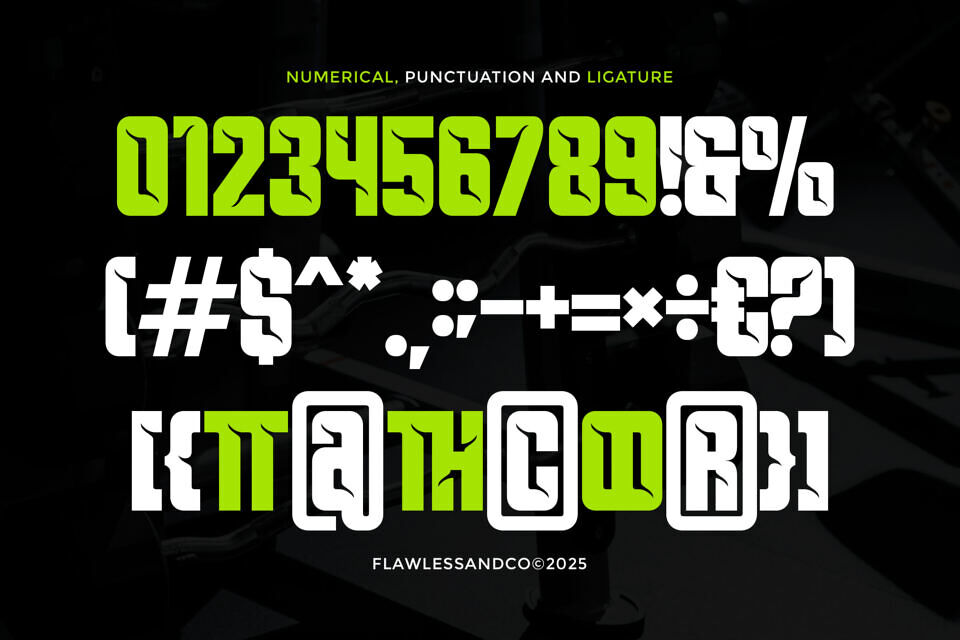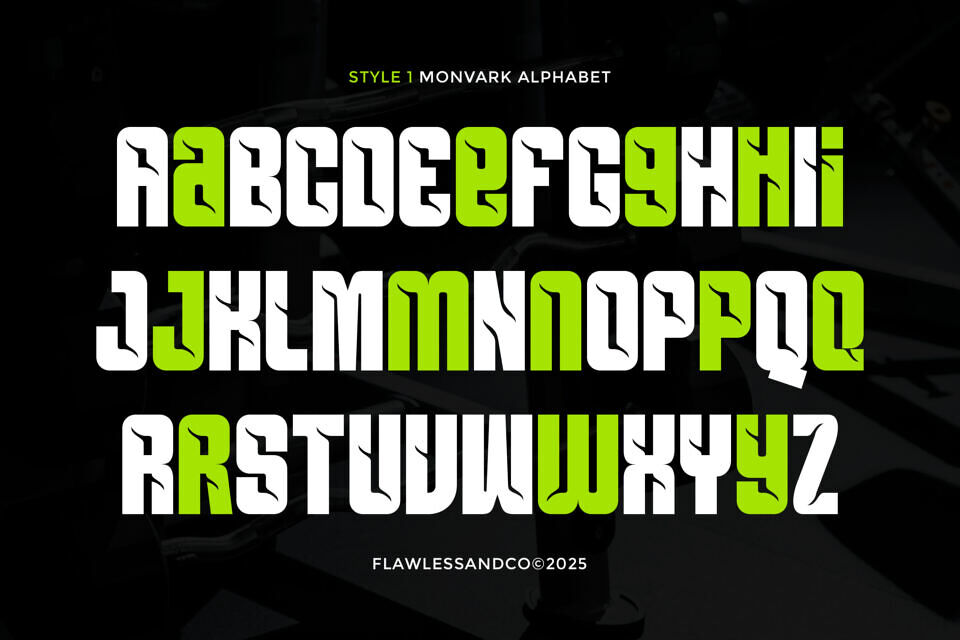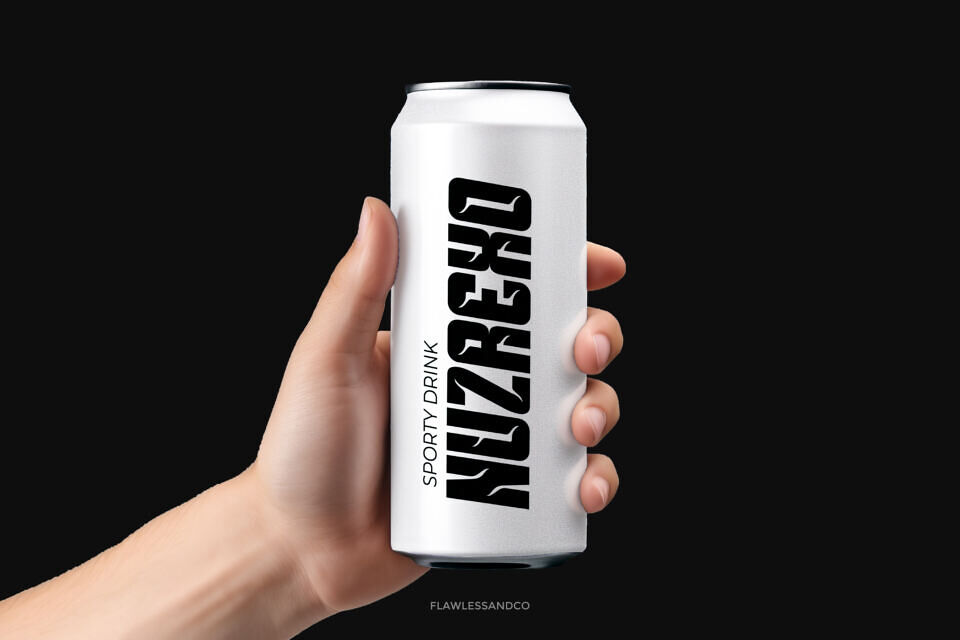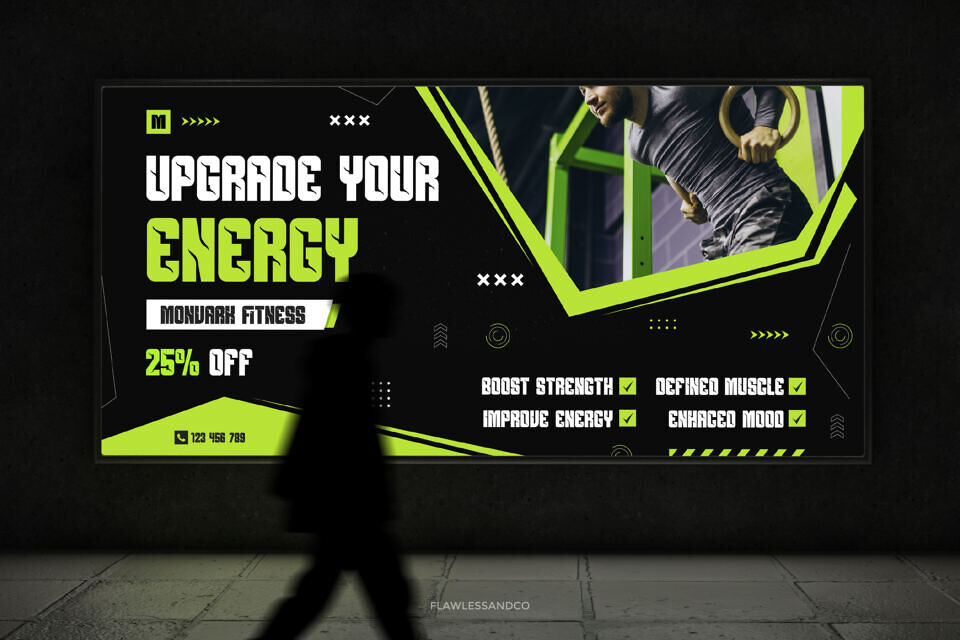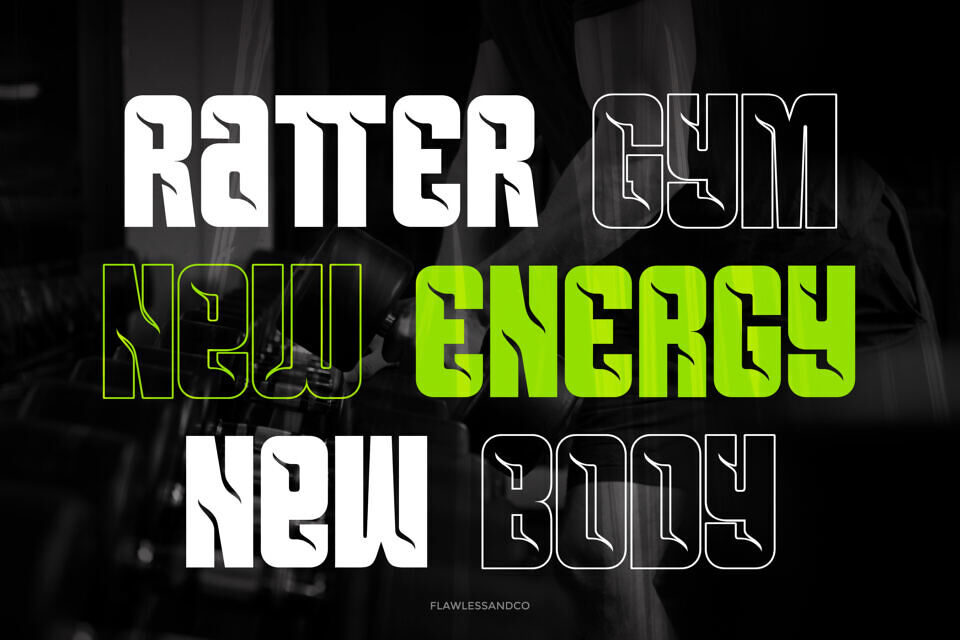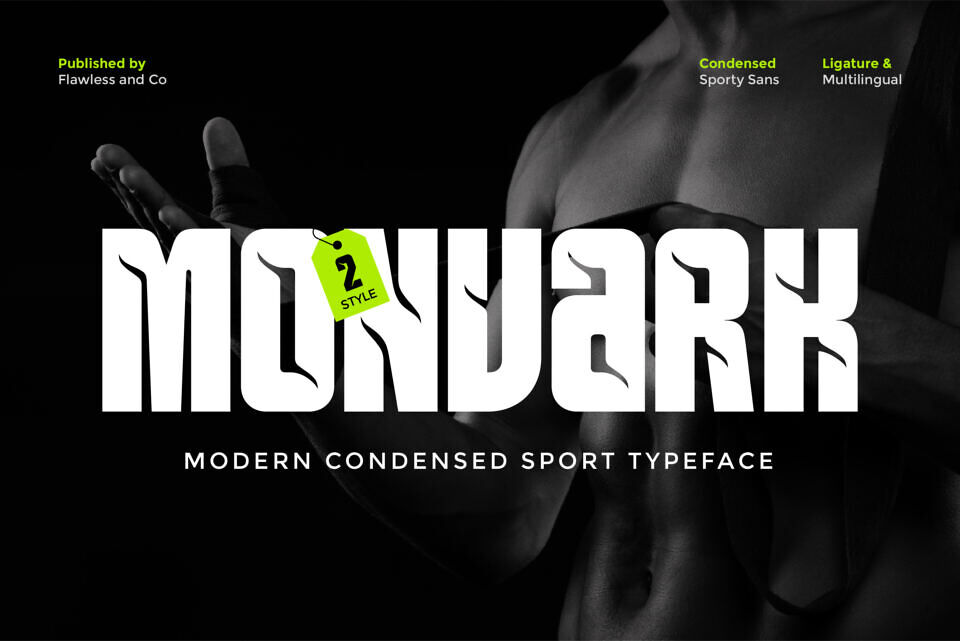
Monvark Font
Monvark is a bold and powerful condensed sport font designed to bring intensity, precision, and unstoppable energy to your visuals. Built with a sharp modern style and strong condensed structure, Monvark delivers maximum impact in every letter—perfect for projects that demand speed, strength, and confidence.
With its aggressive letterforms, dynamic cuts, and clean sporty aesthetics, Monvark instantly elevates any design into a high-performance visual identity. Whether you’re creating team branding, gym promotions, sports merchandise, or bold headlines, this typeface ensures your message hits with maximum force.